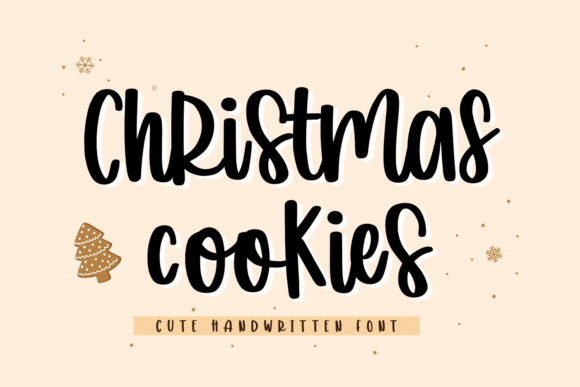
Introducing Christmas Cookies Font, the ultimate companion for adding a touch of charm and elegance to your projects! Crafted with love by Mozatype, this delightful handwritten font is here to make your designs shine like never before.
With its adorable and captivating style, Christmas Cookies Font is the perfect choice for all your creative endeavors. Whether you're working on personalized gifts, holiday cards, or even Cricut projects, this font will bring an irresistible festive spirit to every piece.
What sets Christmas Cookies Font apart is its ability to infuse your designs with warmth and joy. Each letter is carefully crafted to resemble the playful strokes of a child's handwriting, evoking a sense of nostalgia and wonder. Say goodbye to boring and predictable fonts, and let Christmas Cookies Font take your projects to a whole new level.
Imagine your Christmas cards adorned with this enchanting font, instantly spreading the holiday cheer to everyone who receives them. Picture your Cricut creations coming to life with the whimsical touch of Christmas Cookies Font, making them truly one-of-a-kind and unforgettable.
Not only does Christmas Cookies Font add a unique and eye-catching element to your designs, but it also offers incredible versatility. Its script style seamlessly blends with any project, making it suitable for a wide range of themes and purposes. From invitations to branding, this font has the power to elevate your creations beyond imagination.
Embrace the magic of Christmas with Christmas Cookies Font. Its joyful and adorable nature will not only captivate your audience but also evoke a sense of warmth and happiness. Let your designs stand out from the crowd and create lasting memories with this captivating font.